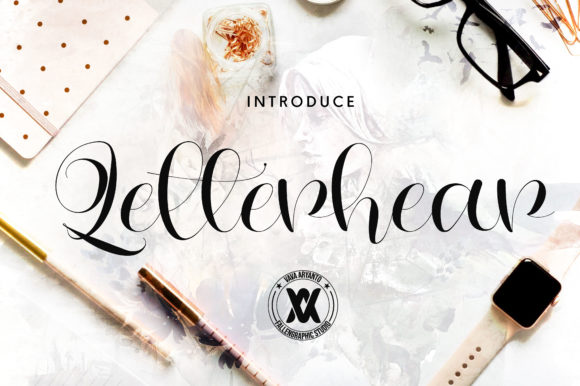
Letterhear Font
Letterhear Font is perfect for heartfelt communication services, personal letter writing studios, emotional counseling centers, intimate greeting card designs, meaningful social campaigns, empathetic brand identities, caring nonprofit organizations, thoughtful stationery collections, personal memoir publications, and compassionate lifestyle brands.
Letterhear Font creates excitement because it embodies the profound connection and emotional resonance of heartfelt communication with its expressive letterforms and empathy-inspired character design. The font's gentle curves and listening aesthetic instantly convey genuine understanding and emotional intelligence, making any brand appear deeply caring and authentically empathetic. Its carefully crafted communication details and heart-centered character create an immediate sense of emotional connection that captivates audiences seeking meaningful relationships, authentic communication, and products that celebrate the transformative power of truly hearing and understanding one another.
The Letterhear Font family includes multiple weights and styles: Regular, Bold, Light, Medium, Italic, Condensed, Extended, Heartfelt, Empathetic, and Caring versions. Each variant maintains the font's signature emotional character while offering different levels of communication styling and empathetic authenticity suitable for various personal and relationship-focused applications.
This compassionate typeface brings the authentic spirit of emotional communication into contemporary design with remarkable empathy and heartfelt appeal. Letterhear Font Free Download provides communication brands and caring organizations with access to premium empathy-inspired typography that embodies the essence of meaningful connection and emotional understanding. The font's heartfelt design and empathetic authenticity make it ideal for businesses seeking to establish meaningful relationships with audiences who value genuine communication, emotional intelligence, and the transformative power of truly listening and being heard. Whether you're creating branding for counseling services, designing materials for communication workshops, developing content for relationship platforms, or producing materials for empathy-focused organizations, this font delivers the caring atmosphere that resonates with audiences seeking genuine connection, emotional understanding, and the profound healing that comes from authentic communication and empathetic listening. Its versatile design ensures outstanding performance across both intimate printed materials and compassionate digital platforms while maintaining the character of authentic empathetic typography. The font excels in applications requiring emotional credibility and communication appeal. Caring professionals appreciate its ability to convey genuine empathy while remaining highly functional for various therapeutic communications and emotional promotional materials. The comprehensive character set includes caring symbols and extensive international language support, making it perfect for global communication brands and international empathy organizations seeking to communicate authentic emotional intelligence, caring connection, and empathetic understanding to diverse worldwide audiences who value meaningful relationships, seek genuine communication, and embrace the transformative power of authentic listening that creates deep human connection through the beautiful art of truly hearing and understanding one another with compassion, empathy, and genuine care.